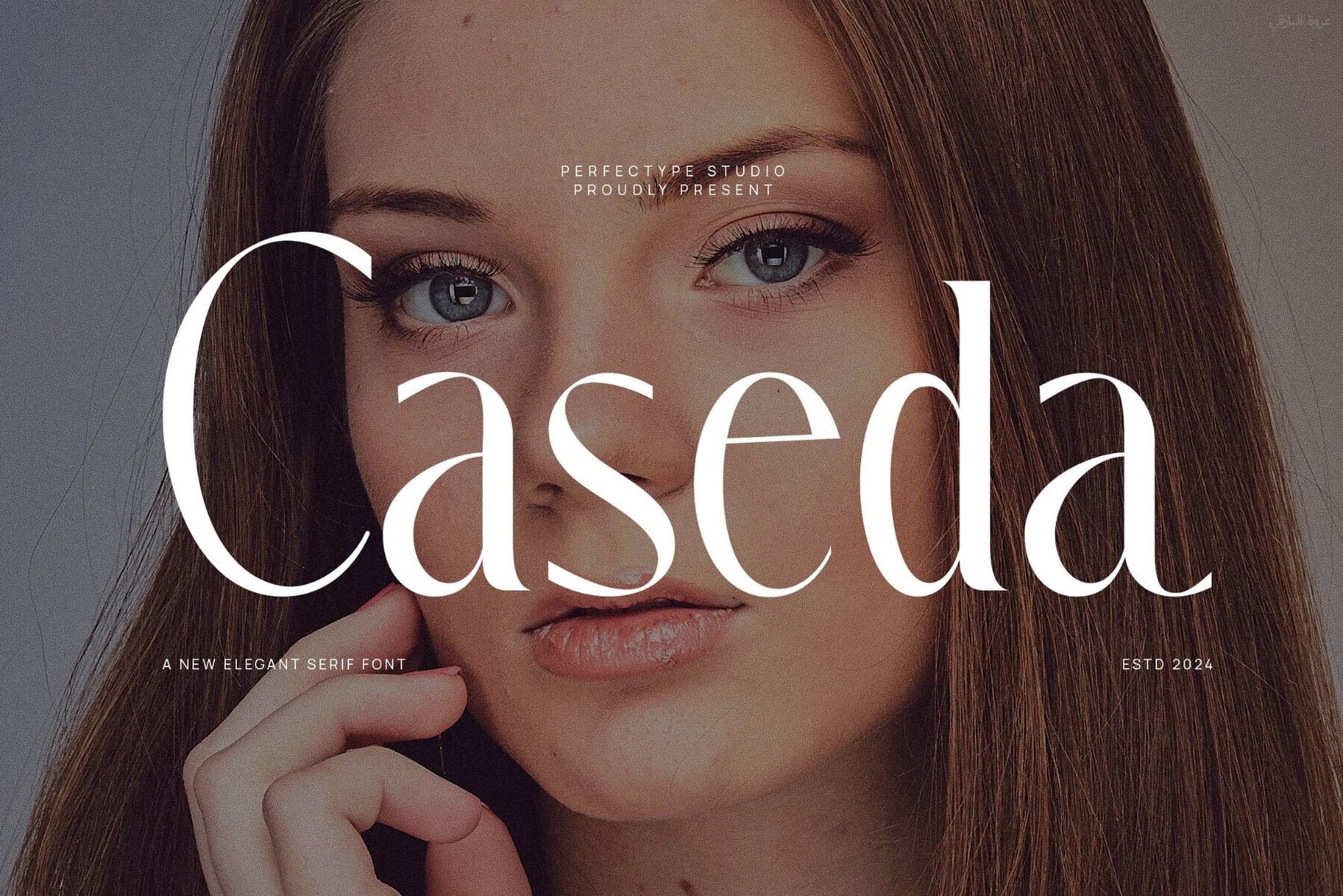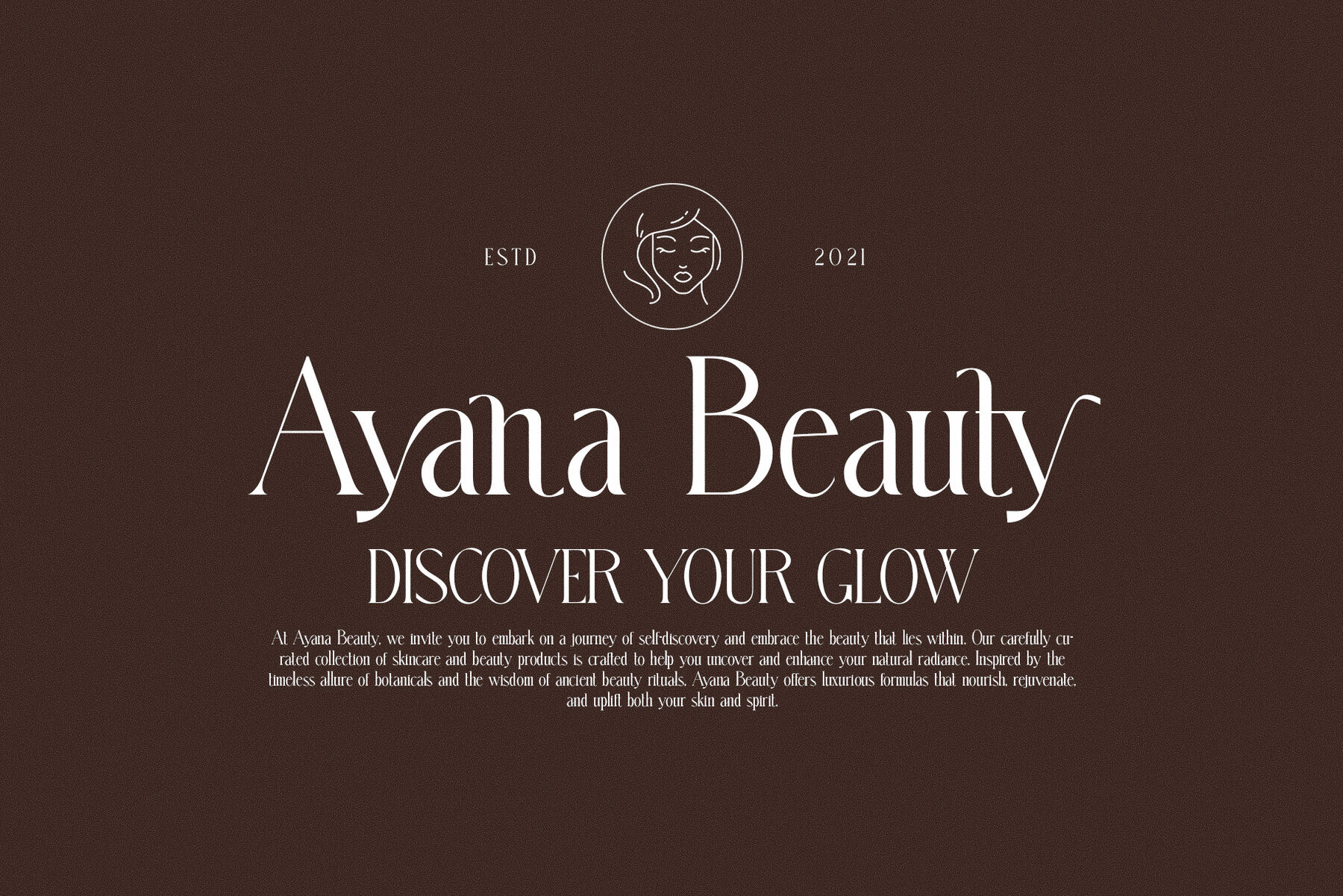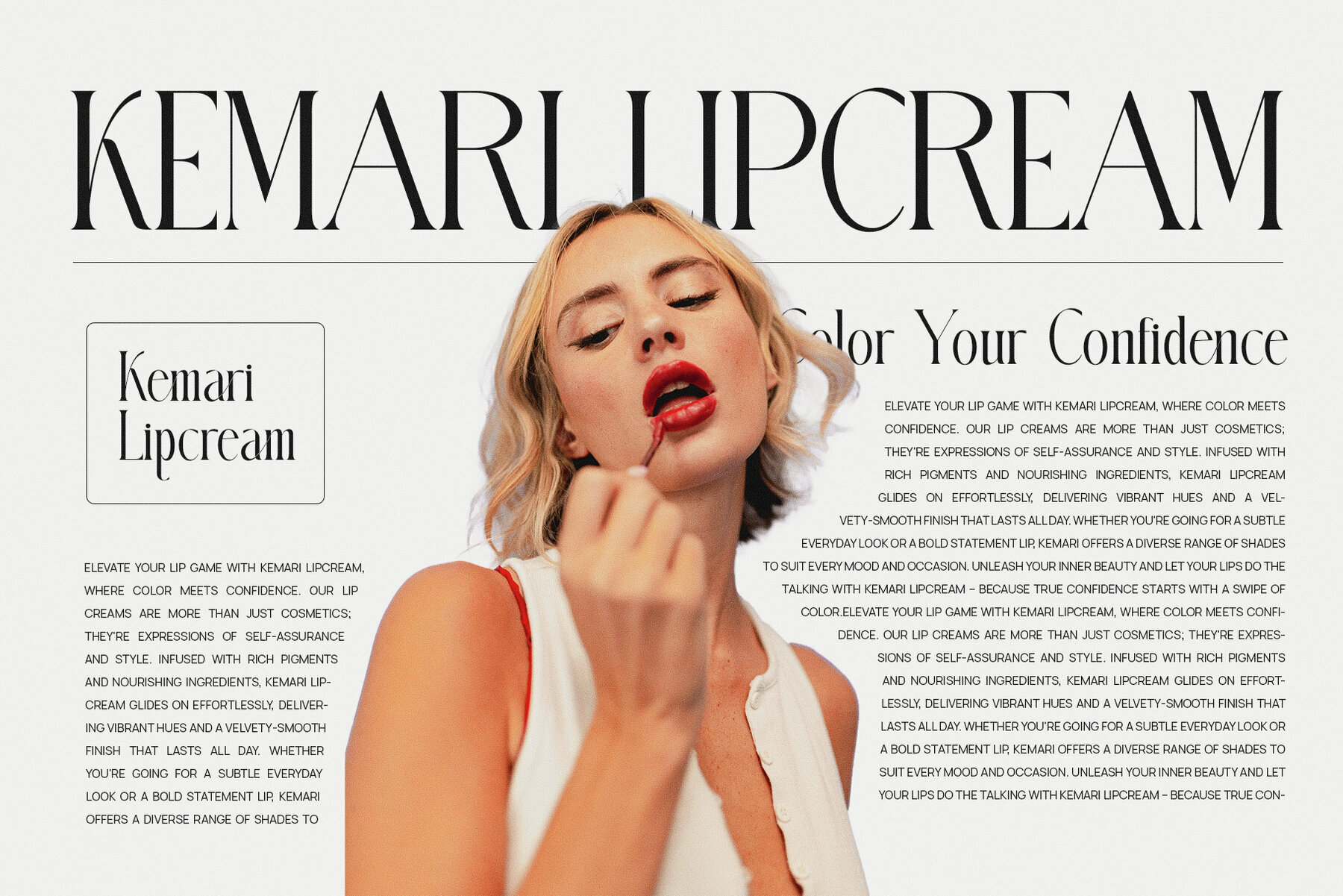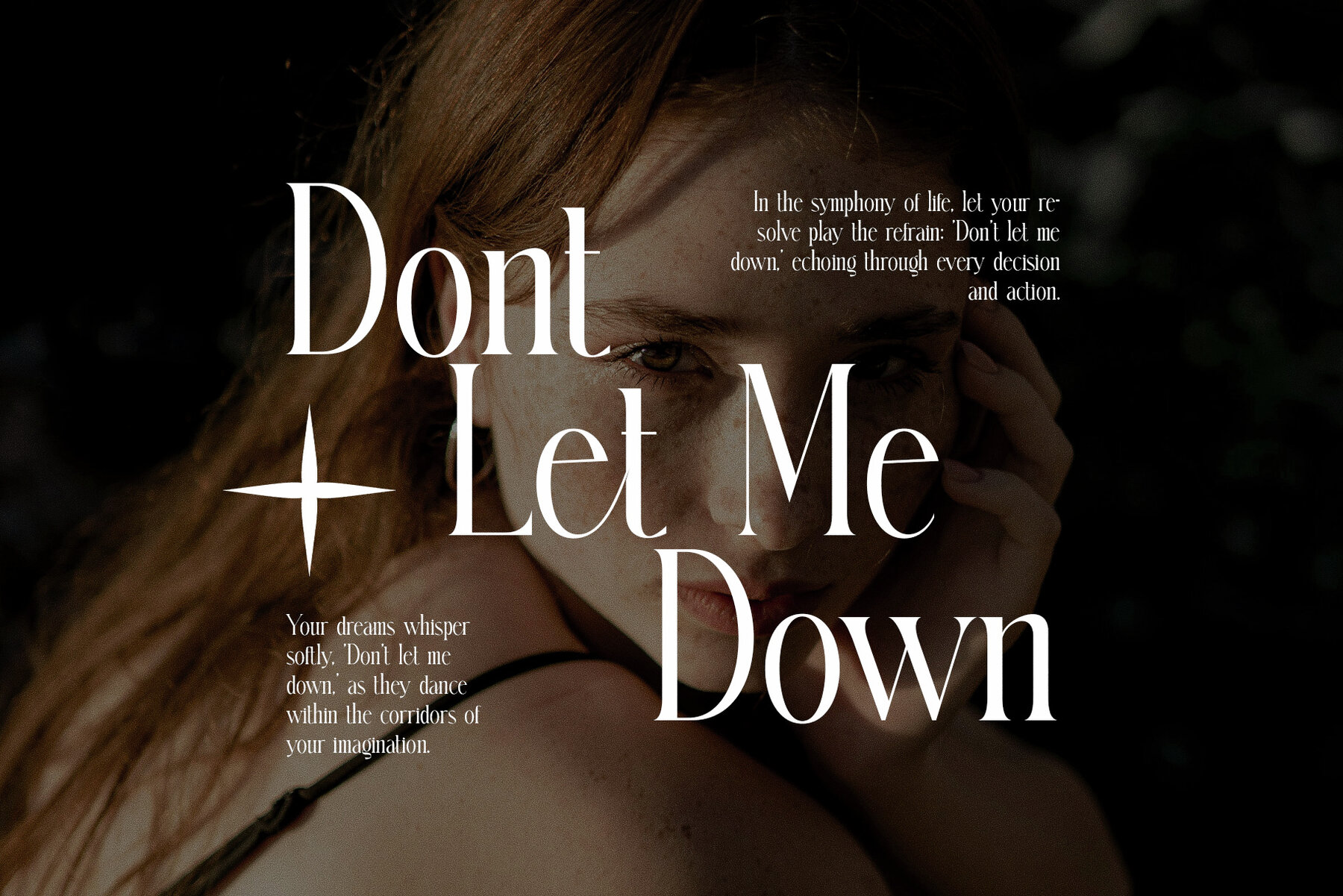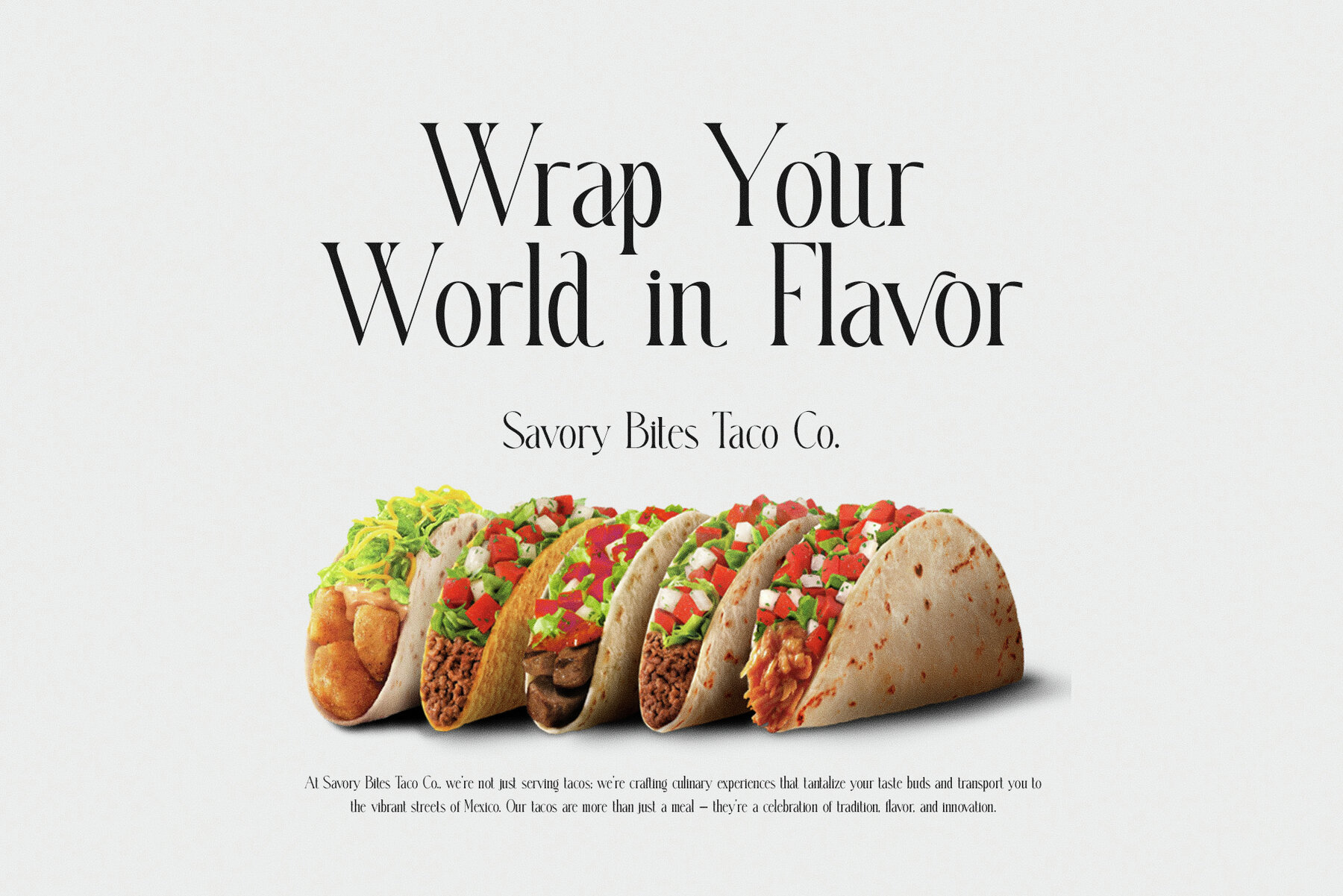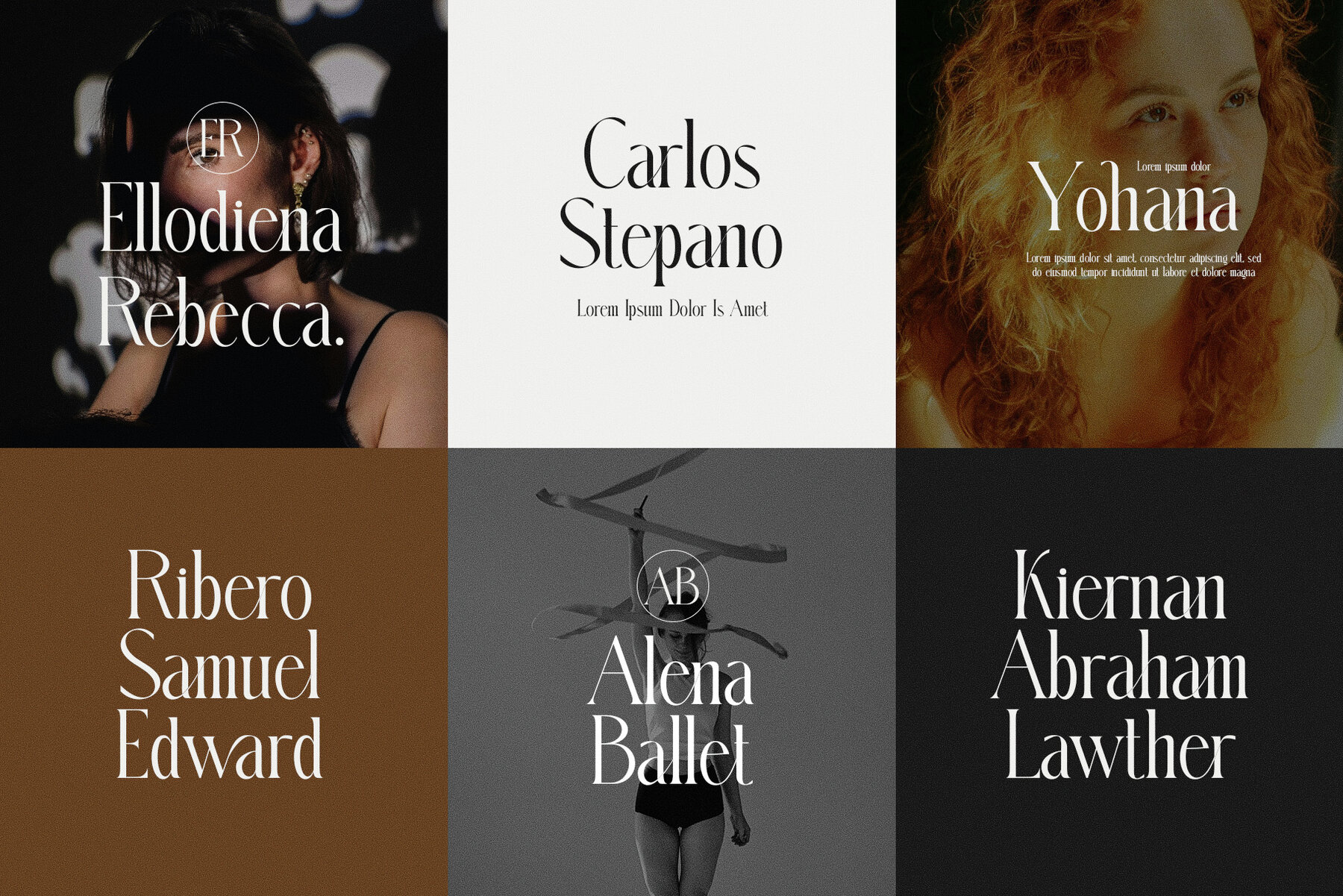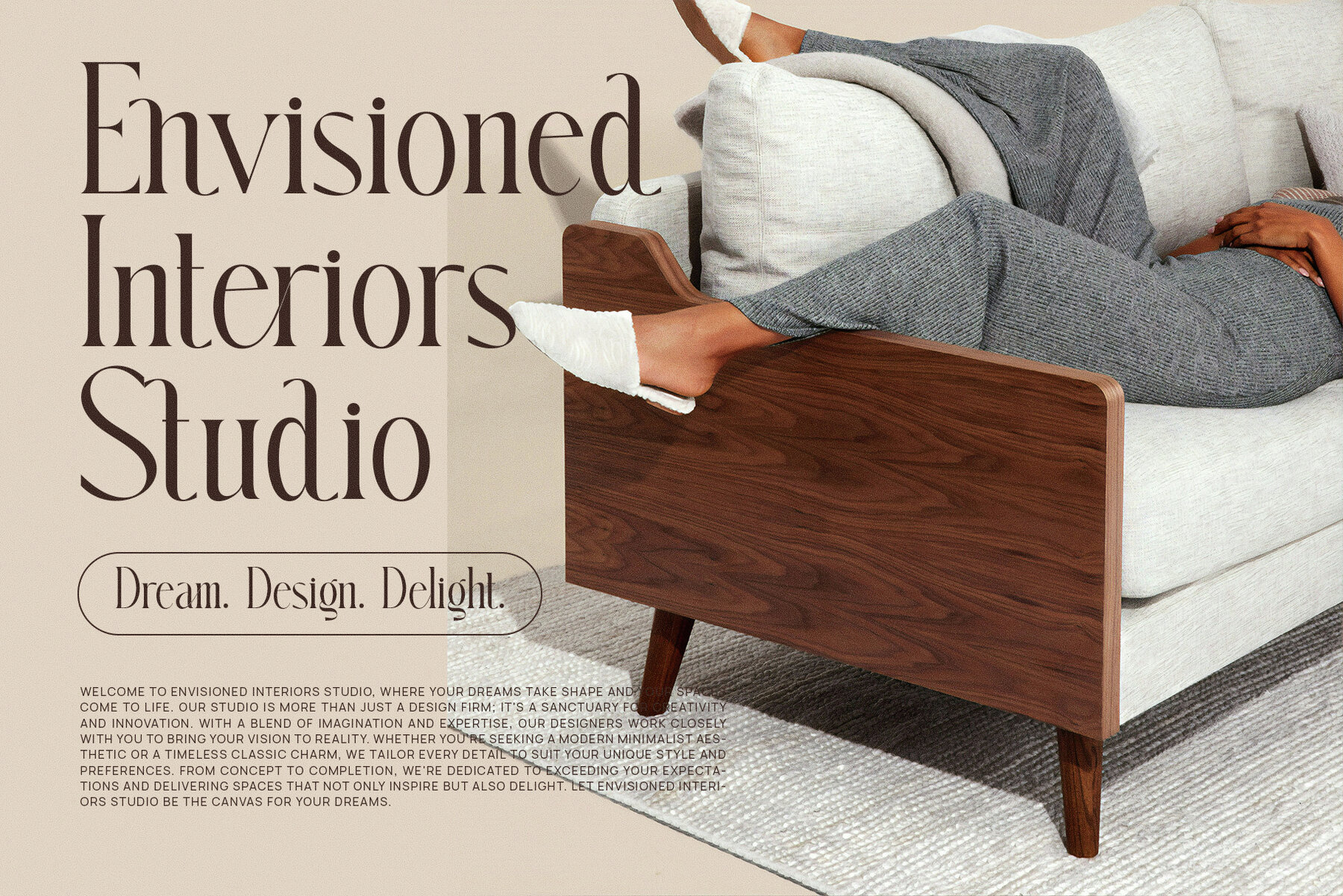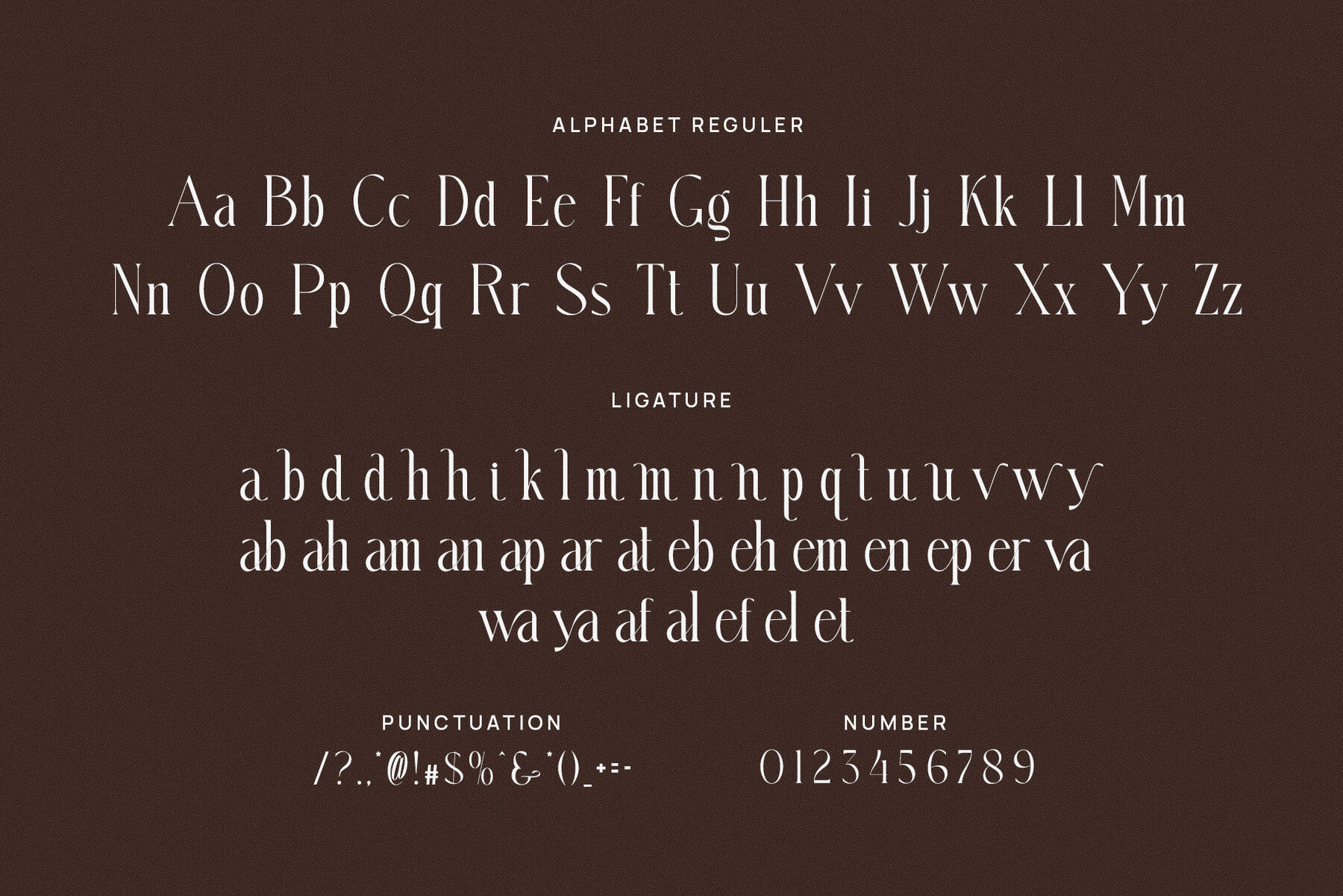
The Caseda Elegant Serif Font is a typeface that captures a seamless blend of modern sophistication with timeless serif charm. Ideal for those who appreciate refined aesthetics and the powerful role typography plays in creating memorable visuals, Caseda is designed to complement luxury branding, boutique style, and upscale publications. Its presence infuses any creative project with an air of elegance. Caseda stands out with its unique ligatures and alternates, allowing for versatility and individuality in designs. These features transform standard text into distinctive typography that resonates with audiences, from striking logos to artisanal product packaging. The font's carefully balanced serifs offer both a stylish appearance and superior legibility, making even complex layouts clear and engaging. This modern serif font excels across domains, from digital spaces like websites and advertisements to print environments such as magazines and editorial layouts. Its timeless appeal paired with contemporary design makes it perfect for projects that demand elegance and functionality. Whether you're crafting branding materials or designing food packaging, Caseda provides a premium look that captivates attention. Crafted for both print and digital success, Caseda Elegant Serif thrives in various settings. Its striking presence enhances magazine layouts and advertisements with sophistication, while its adaptability ensures a modern and elegant feel for websites and user interfaces. Caseda Elegant Serif Font is an ideal companion for projects seeking to meld classic charm with modern style. Whether handling branding, fashion design, luxury products, or editorial work, this font ensures your creations are as beautiful as they are memorable.Caseda Elegant Serif: A Symphony of Classic and Modern Elegance